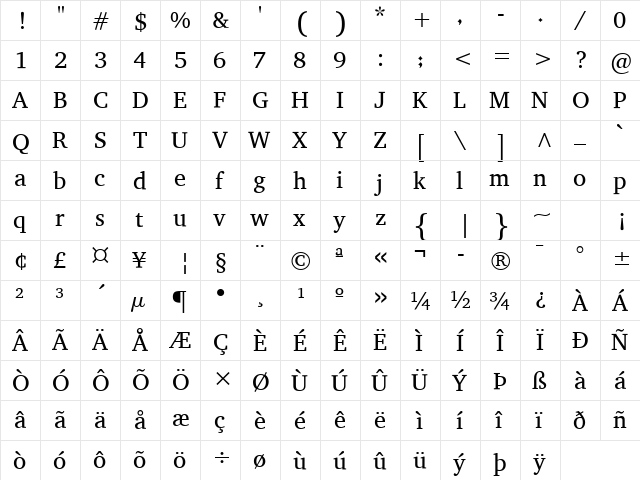
Ezra SIL Regular
Design Context for Ezra SIL Typeface
Ezra SIL offers clean, dependable letterforms without strong stylistic allegiance, making it a practical choice for designers who need flexibility.
Pro Tip: Use Ezra SIL in both headline and body roles to test its range before committing to a single application.